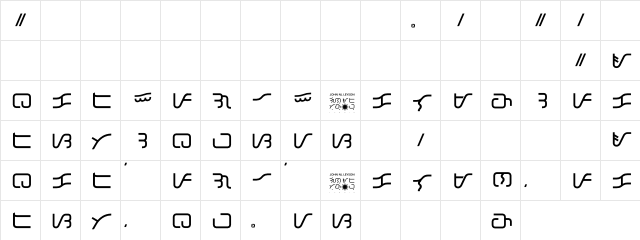
Tawbid Pilipinas Regular Font Preview
Tawbid Pilipinas Regular
Tawbid Pilipinas Regular Font Details
| Foundry | Baybayin Buhayin |
| Designer | John NL Leyson |
Design Context for Tawbid Pilipinas Typeface
Tawbid Pilipinas takes a measured approach to typography — its balanced proportions and neutral character make it a reliable workhorse for both digital and print work.